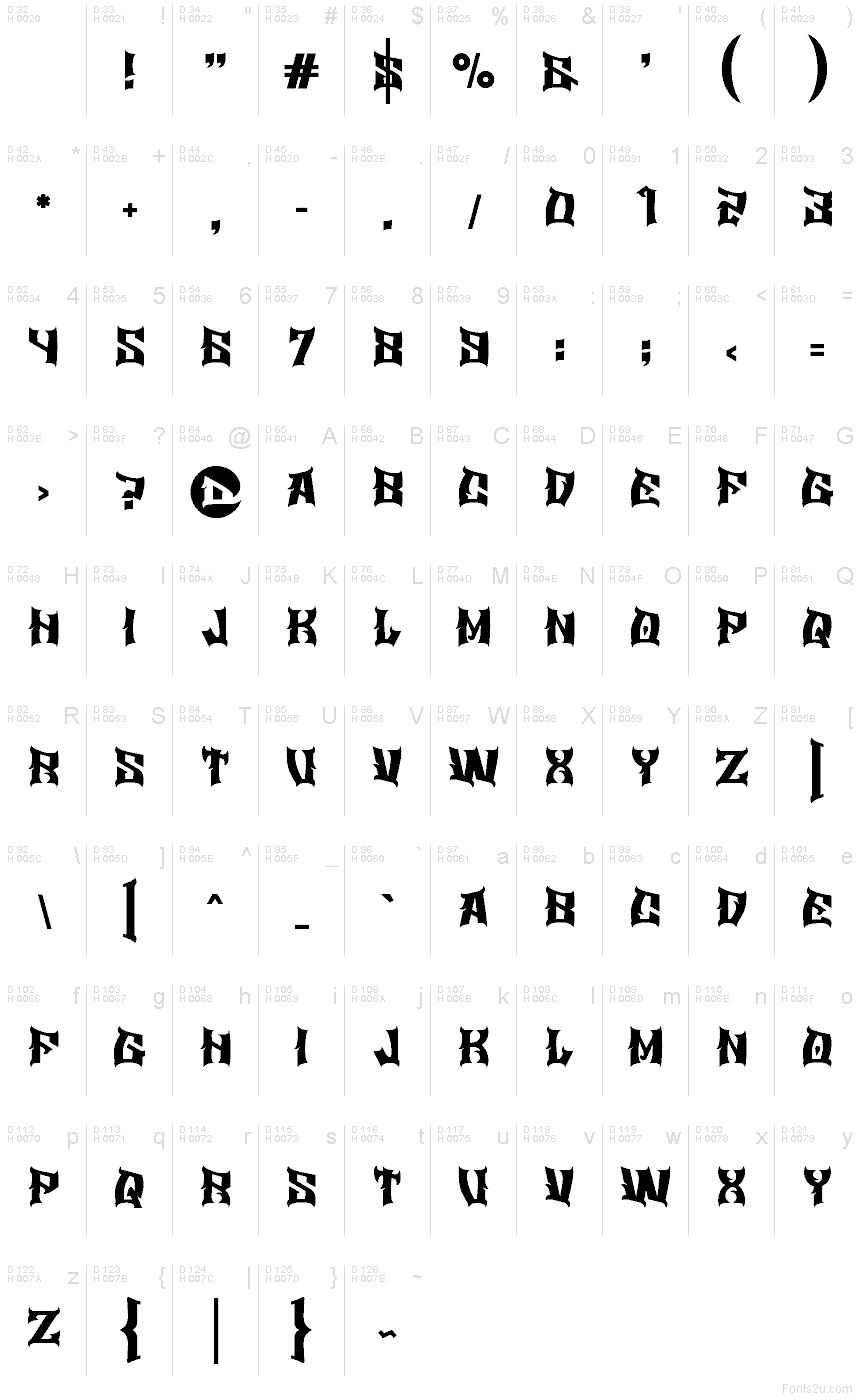
DARUMA
Daruma font by Gilang Ternadho, designer at Alafhamouse Studio, a gothic bold font with heavy contrast. Its ornamental style gives off medieval vibes through character edges and sharp angles that form most corners. This modern font is detailed and decorative making it perfect for special projects where writing must deliver interesting impressions.